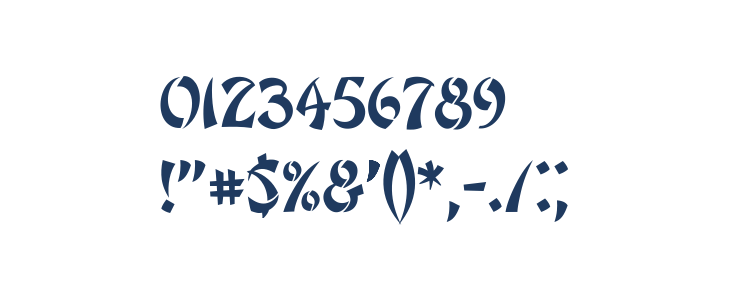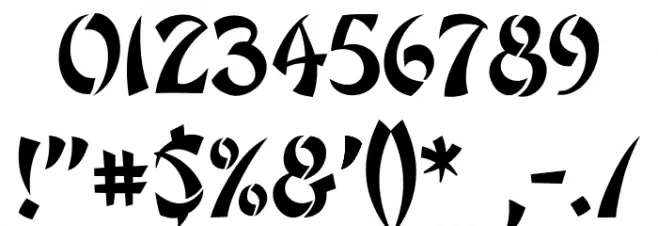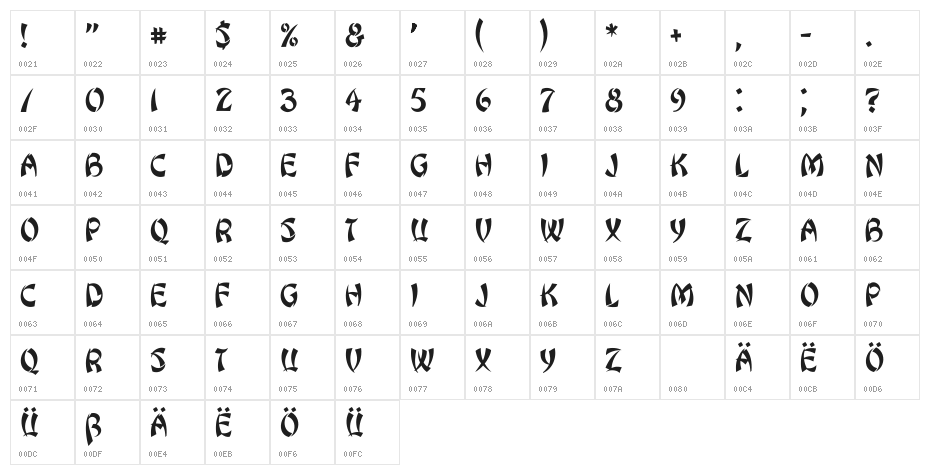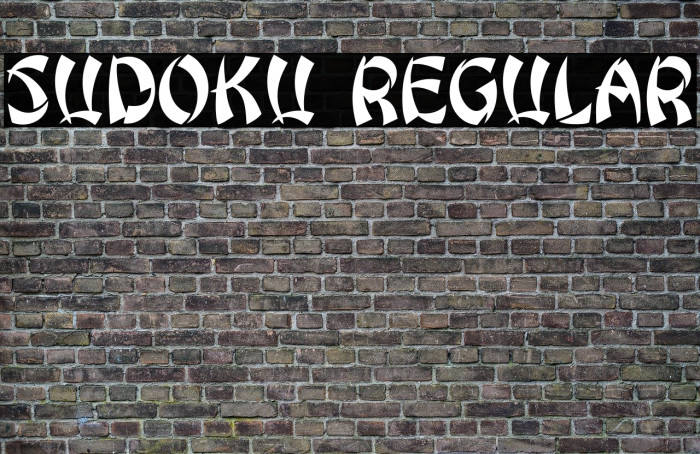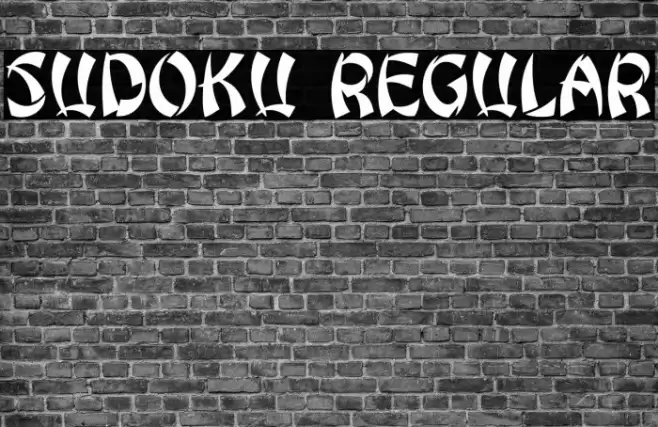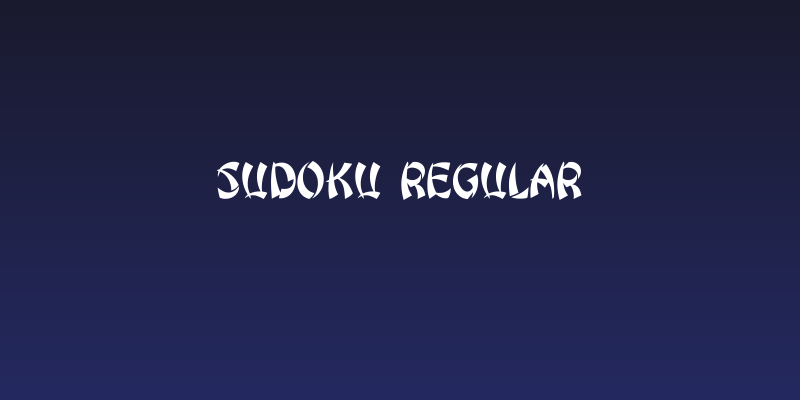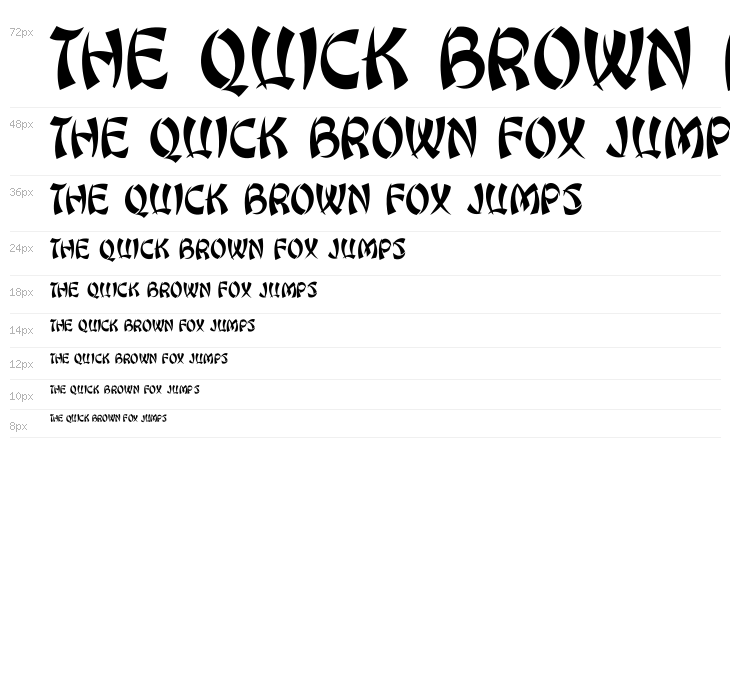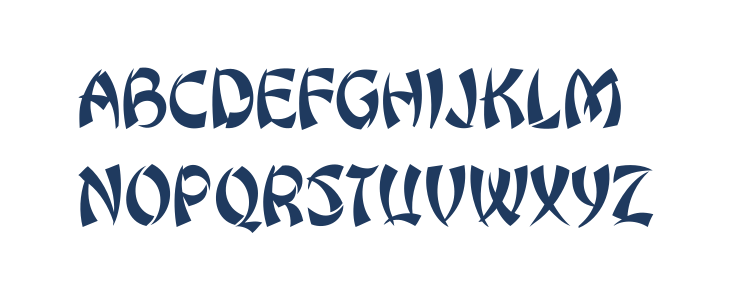
Sudoku Regular Font
Sudoku Regular Description
This font features a bold and dynamic style with sharp, angular edges and a distinctively modern flair. The characters are designed with a high contrast between thick and thin strokes, creating a striking visual impact. The uppercase and lowercase letters maintain a consistent style, with unique curves and pointed ends that give the font a sense of movement and energy. The numbers and special characters are equally bold, ensuring uniformity across all text. This font's design is both eye-catching and versatile, making it suitable for a variety of creative applications.